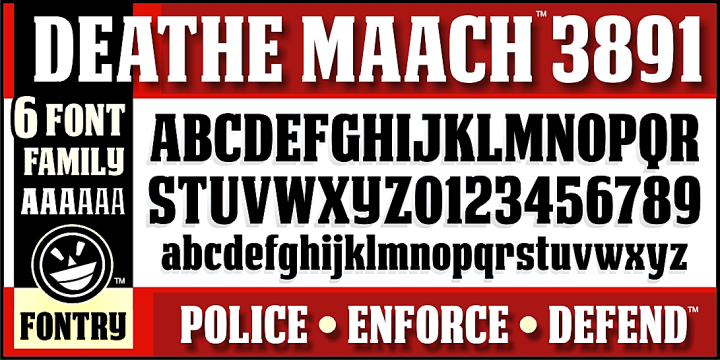
DEATHE MAACH 3891
DEATHE MAACH 3891 is a display serif and display slab font family. This typeface has six styles and was published by The Fontry.
There’s a war starting; you just didn’t notice because you were too busy fighting to realize what was happening. Take your sides. Pick your battles. Choose a face that stands ready to defend, enforce and police. All who are ready to serve, please step forward. Deathe Maach is a six-font family of descending weights with the strength and stamina to face all comers in the approaching conflict. Armor on. Pistols out. Barrels forward. Enforce and serve.